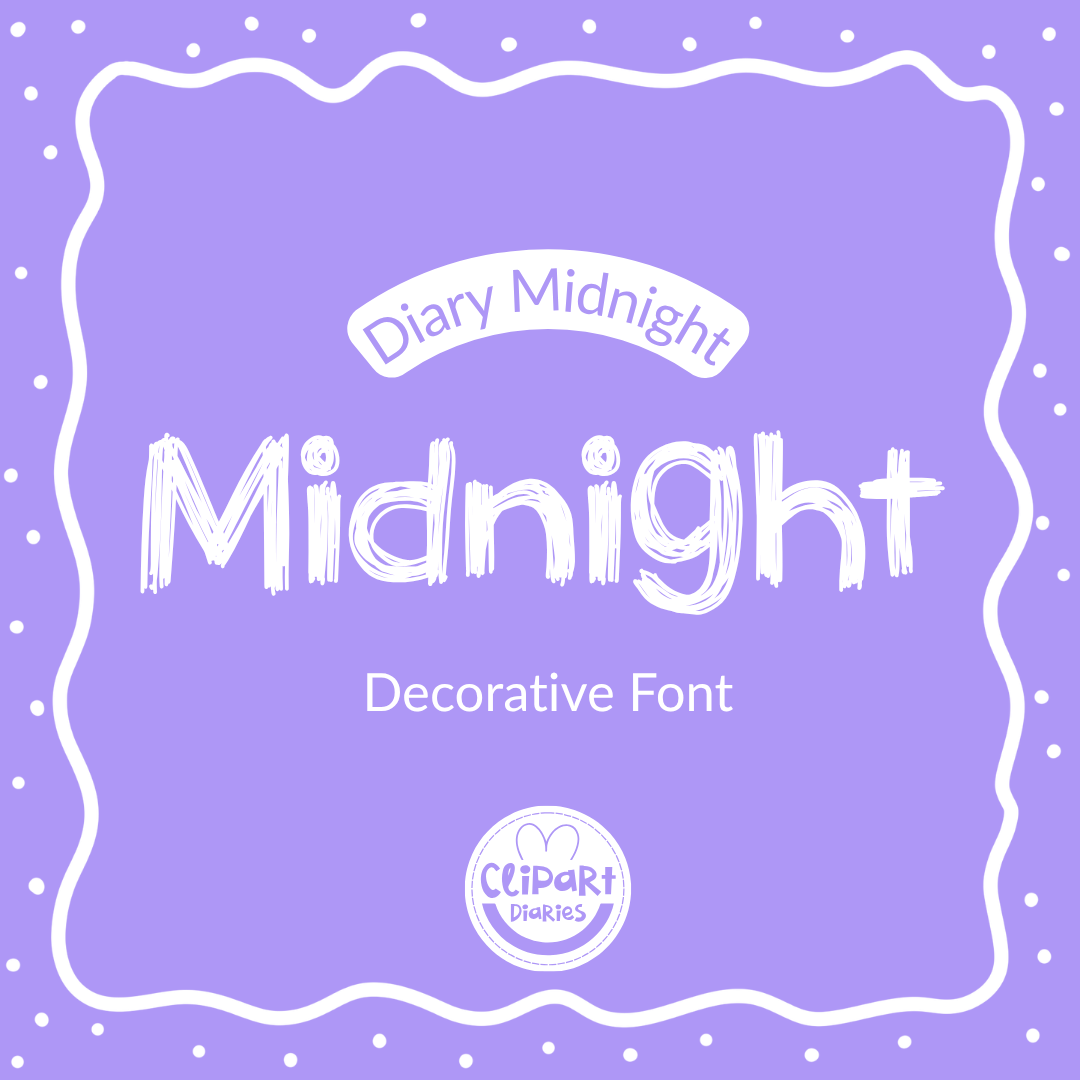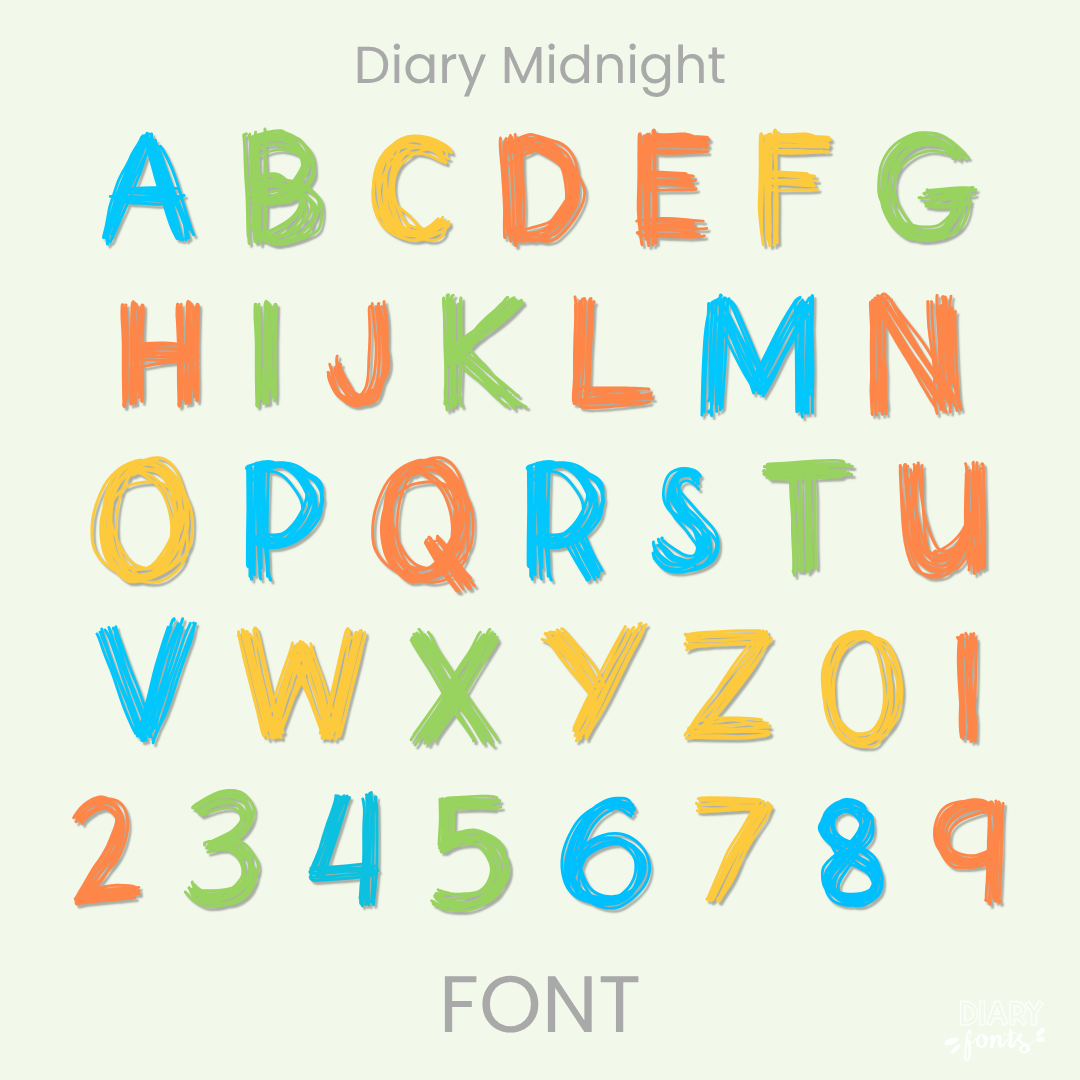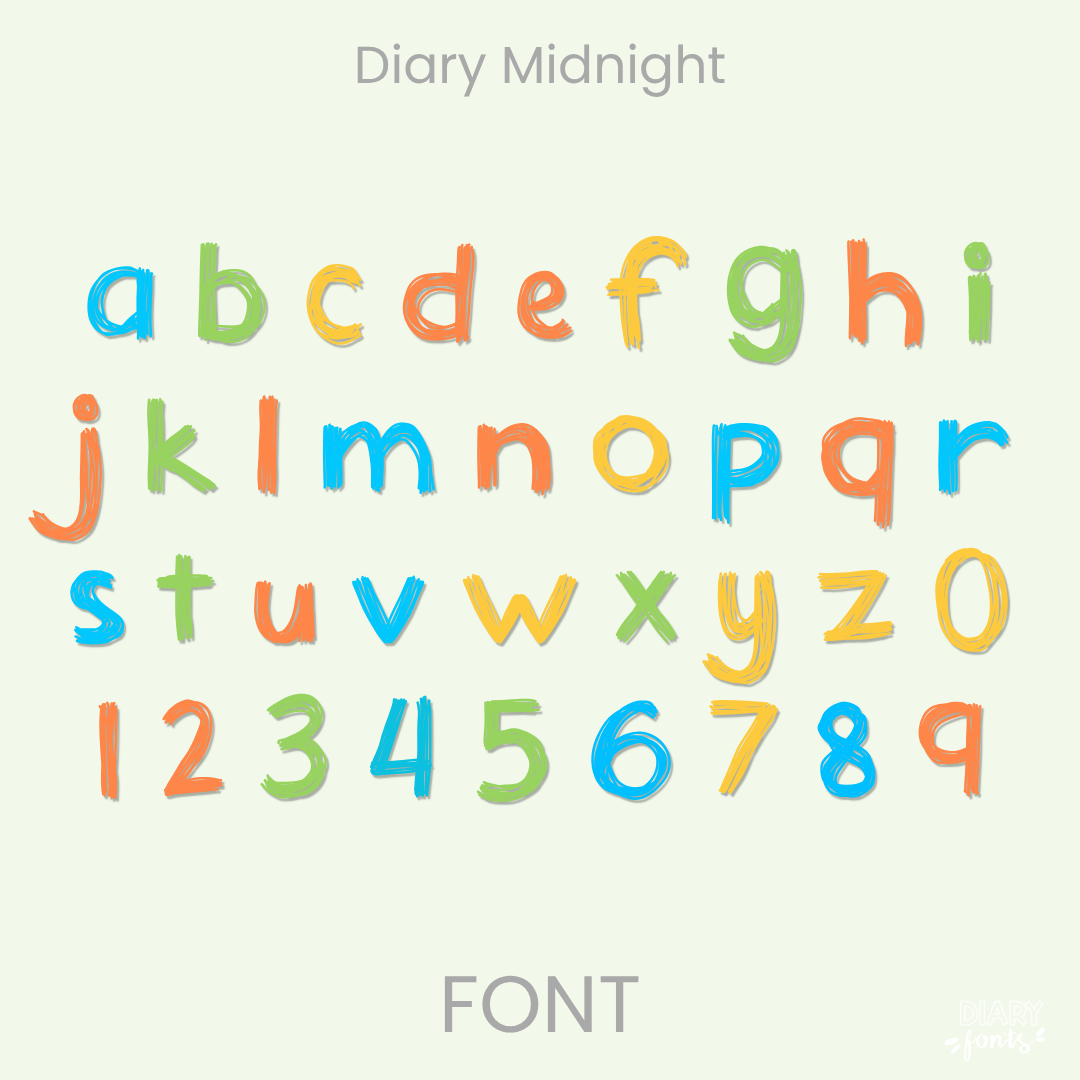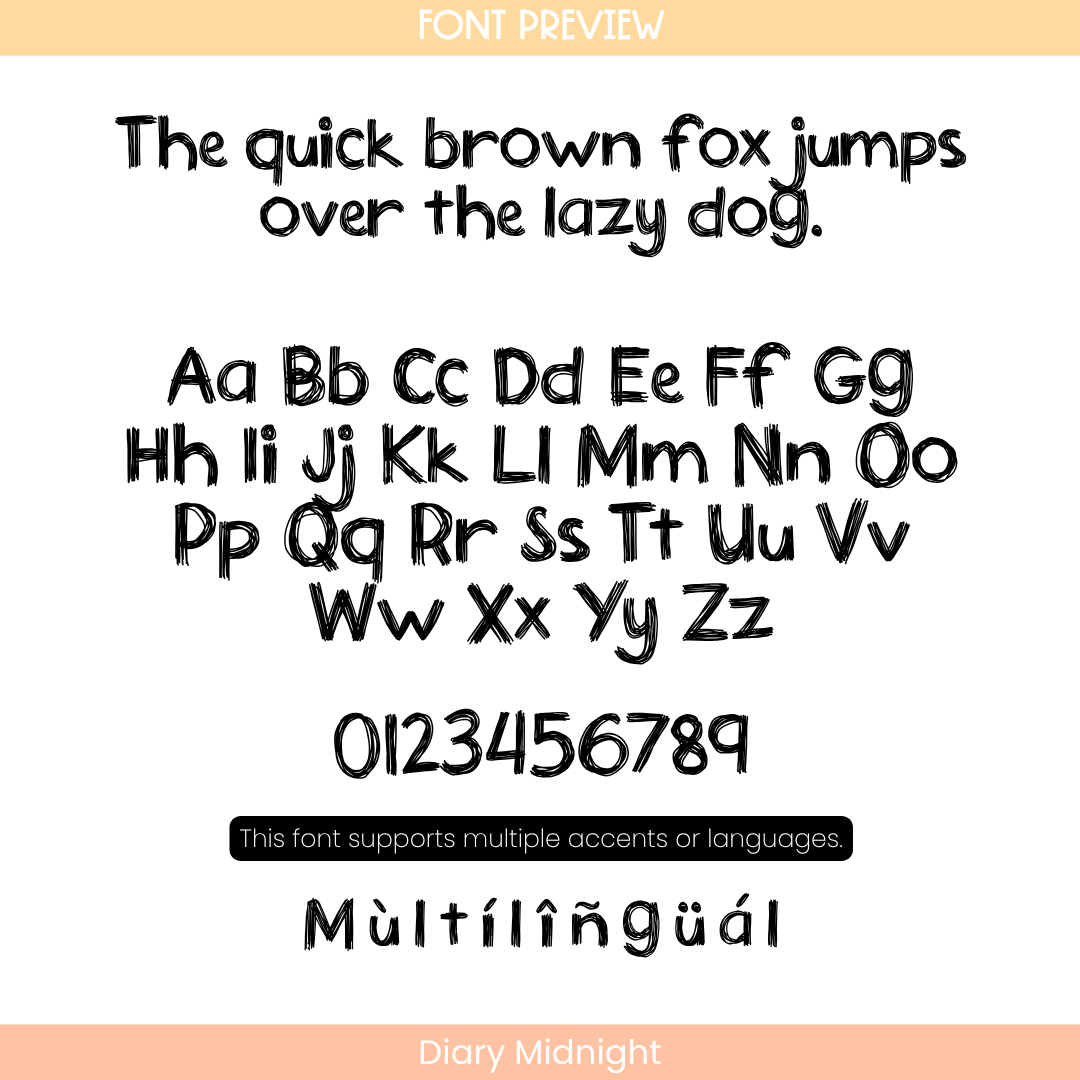
If you want to give your projects a whimsical and playful look, Diary Midnight is an excellent choice. This typeface adds a charming twist with a distinct random line strokes pattern embedded right into the middle of the letterforms.
This font is a perfect fit for dream-themed classroom headers, space science activities, creative storytelling worksheets, morning presentation slides, and daily bulletin boards where you want titles to look uniquely hand-crafted and engaging. The download includes a full set of uppercase and lowercase letters, numbers, and multiple accents to support different languages. It is ready for use in Canva, MS Office, and Adobe Apps, and it works smoothly on the iPad with GoodNotes and Procreate. Whether you are creating personal classroom decorations or commercial teacher resources, this typeface brings a warm, fun, and approachable aesthetic to your design toolkit.